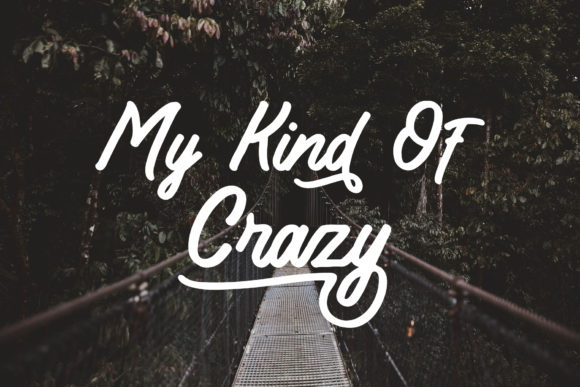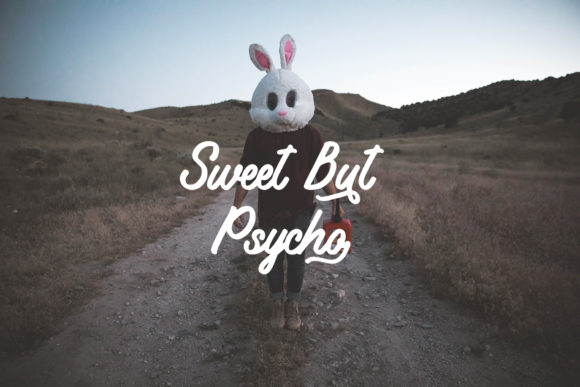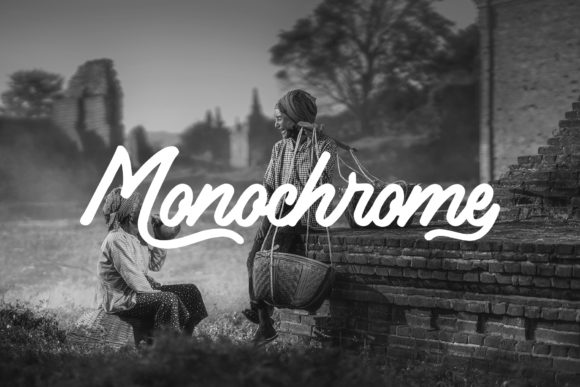
Introduction to Koeltoerals Font
As a designer, there’s nothing quite like the thrill of the creative spark. It’s that moment when an idea clicks, and you know exactly what you need to bring it to life. For me, that spark often comes from discovering a new, high-quality font that perfectly captures the essence of my vision. And that’s exactly what happened when I stumbled upon the stunning Koeltoerals Font. Its elegant script design is nothing short of mesmerizing, making it the perfect addition to any creative project.
What I love most about the Koeltoerals Font is its versatility. Whether you’re crafting a beautiful wedding invitation, designing a captivating advertisement, or simply looking for a unique touch for your logo, this font is sure to impress. And the best part? It’s available for free download, complete with a transparent background, making it easy to integrate into your design resource library.
As a valuable resource for designers, the Koeltoerals Font is a game-changer. Its high-quality design and endless creative possibilities make it a must-have for any serious design project. In this article, we’ll delve into the world of this stunning font, exploring its features, benefits, and how to incorporate it into your next creative endeavor.
Key Features of Koeltoerals Font
- High-quality design: Koeltoerals Font is a well-crafted, high-quality design resource ideal for creative projects.
- Transparent background: Koeltoerals Font features a transparent background, allowing for easy customization and integration with various design elements.
- Supports multiple languages: This font supports a wide range of languages, making it a versatile design resource for global projects.
- Size: Koeltoerals Font comes in a single size, but it can be easily scaled to suit the needs of your creative project.
- Resolution: This font is designed for high-resolution displays, ensuring crisp and clear typography in your designs.
Honest Review: Koeltoerals Font
I recently stumbled upon the Koeltoerals Font while searching for high-quality design resources for a creative project. As a designer, I was excited to see if this font would live up to its promises.
Here’s what I liked about the Koeltoerals Font:
- ✨ High-quality design: The font has a professional look and feel, making it perfect for any project that requires a touch of sophistication.
- ✨ Transparent background: The font’s transparent background made it easy to use in layered designs, which was a huge plus.
- ⚠️ Limited character set: The font only includes a limited character set, which made it difficult to use for projects that required a wide range of characters.
- ⚠️ Not suitable for large text: The font’s design made it difficult to read when used in large text sizes, which was a drawback for some of my design needs.
Overall, I was impressed with the Koeltoerals Font’s design and usability, but its limitations held it back from being a go-to font for all my design projects.
Common Use Cases for Koeltoerals Font
The Koeltoerals Font is ideal for use in creative projects that require a unique and eye-catching font. Some common use cases include:
- Graphic design projects
- Infographic design